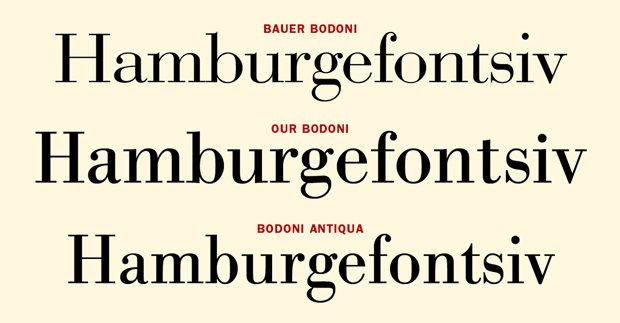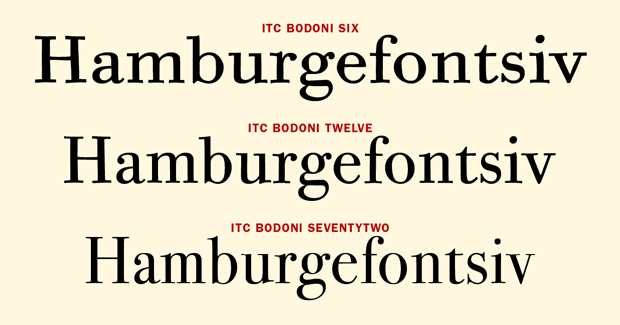
A Bodoni Is A Bodoni…Right?
Bodoni is Bodoni – right? Not necessarily. There are several reasons why your version of a font might be different from someone else’s, or even another of your own fonts. Understanding this occasional and somewhat bewildering occurrence will help head-off potential problems later on. Similar name, different design Multiple versions most often occur in revivals of historical typeface designs, such as Garamond, Bodoni, or Caslon. That’s because the original designs have been revived by many different type designers and foundries over the years. Each revival offers its own interpretation of the original, which makes them, ultimately, different designs. bodoni typeface Three distinctive Bodoni typeface designs; they have similar foundations, but are different interpretations. A major cause for confusion is that all these different designs may have very similar names. Often, the designer or foundry creating the revival will merely add a prefix or suffix to the name of the original design to distinguish it from its competitors (and remember, two fonts with exactly the same name installed on your system will cause font conflicts). Some of the currently available Bodoni versions are ITC Bodoni, Poster Bodoni, E+F Bauer Bodoni, URW Bodoni Antiqua, Monotype Bodoni, Berthold Bodoni Antiqua, and WTC Our Bodoni. These are just a few of the Bodonis now on the market, and they’re all different from one another! Same design, different metrics A less frequent occurrence (but one with a more complicated explanation!) is when two fonts have exactly the same name but space differently, or have slightly different proportions. Here’s why: years ago, finished typeface designs were created in analog format — that is, black images on white paper. When the faces were licensed to other foundries, the artwork was provided as photographic prints. bodoni typeface The ITC Bodoni family is a series of three size-specific designs intended to work well together. These pre-date today’s optical fonts. Armed with these prints, each foundry then “productized” the design for its own equipment. The result could be different spacing, proportions, and even varying designs for the same character. Depending on which foundry produced it, the font might run copy shorter, longer, tighter, more open or with a varying height for the same point size than another licensed version of the same design. For the reasons above, you should always note the complete name and manufacturer when purchasing or specifying a typeface. If this all sounds confusing, it is – but it is worth taking the time to digest and understand if you want to be in control of your type.